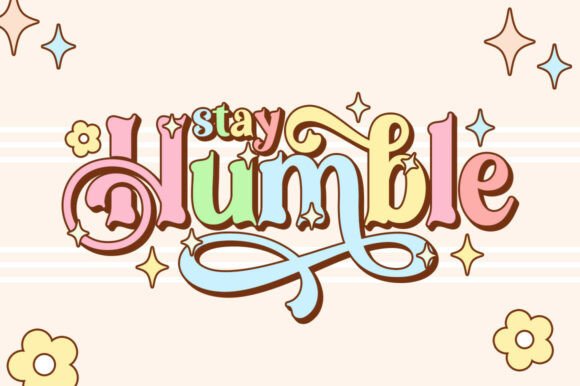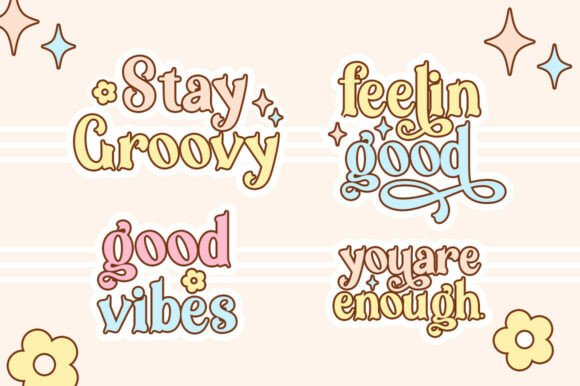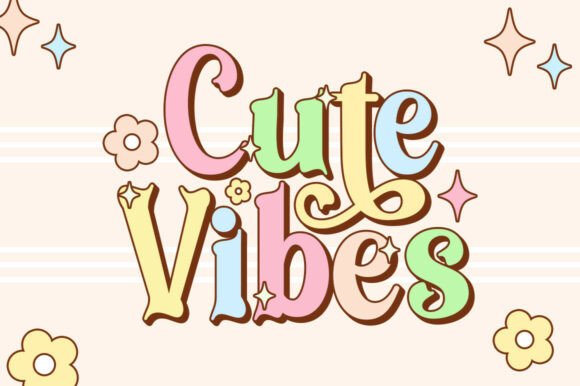
Bright Dreamer Font
Bright Dreamer is cool, retro and fun display font. This font is PUA encoded which means you can access all of the glyphs and alternates with ease! It will look great on headlines, magazines, logos, branding and so much more!